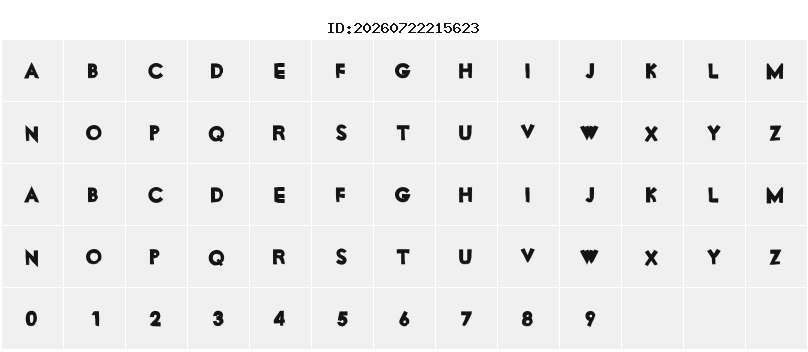
Motor Oil Preview
About Motor Oil.ttf
Motor Oil.ttf is a modern, elegant sans-serif font designed for ultimate readability and visual harmony. Perfect for branding, headlines, web design, and print materials.